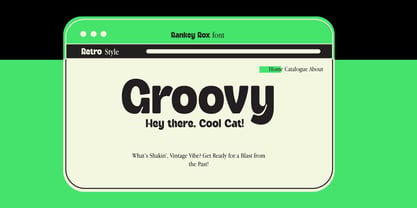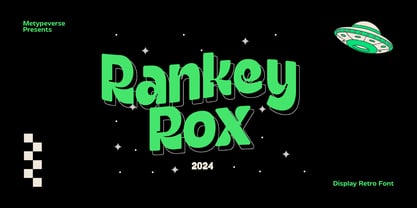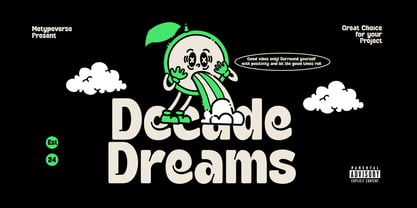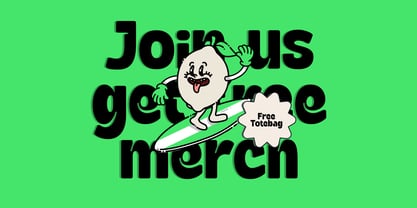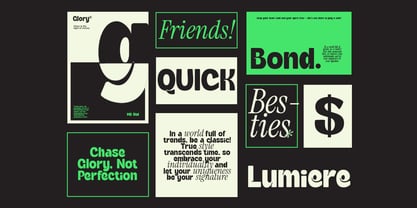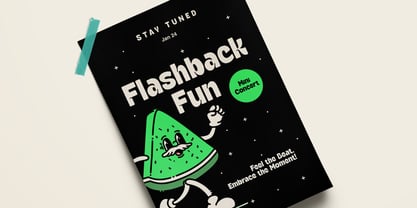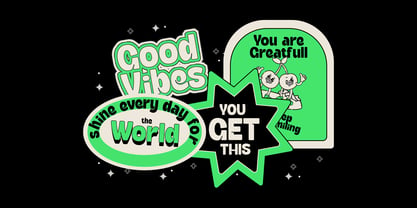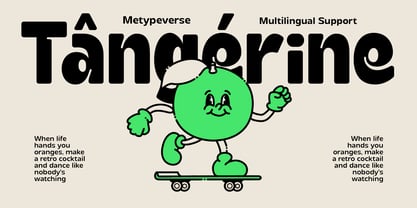
Rankey Rox
por Metypeverse
La familia tipográfica Rankey Rox fue diseñada por Mohamad Ridwan y publicada por Metypeverse. Rankey Rox contiene 2 estilos y opciones de paquete familiar. Más información sobre esta familia
Your design is allowed to have fun.
Rankey Rox is a funky display typeface packed with bold shapes, retro energy, and groovy personality. Made for designers who want their work to feel expressive instead of ordinary, it brings instant character to stickers, posters, packaging, merchandise, branding, social graphics, and playful headlines.
Its distinctive letterforms help turn simple words into visual statements, making Rankey Rox an easy choice when you need typography that grabs attention, sets the mood, and gives your design a personality people can remember.